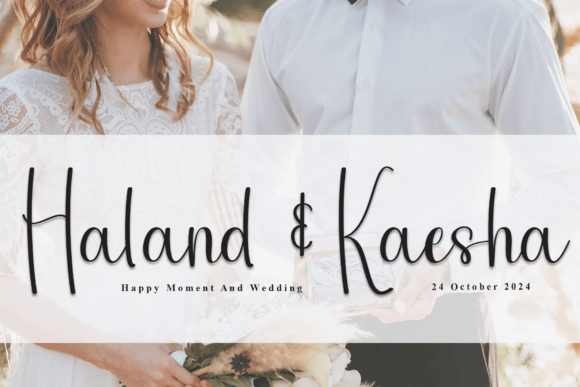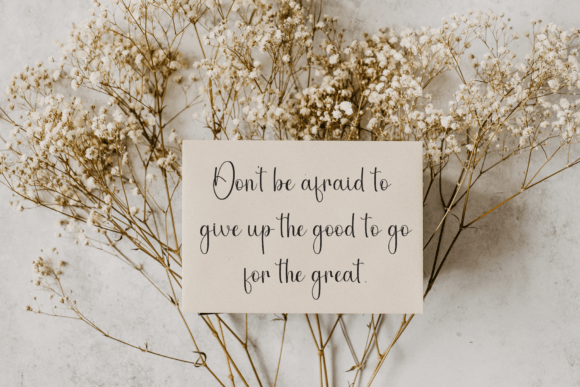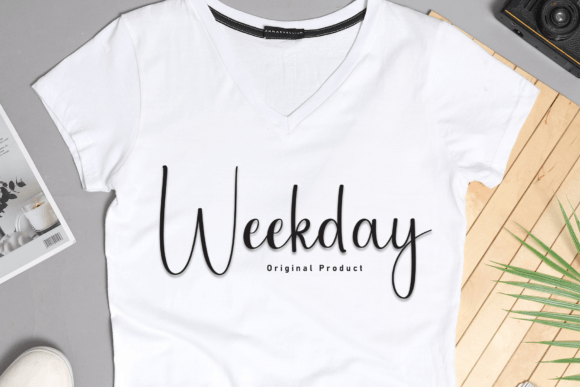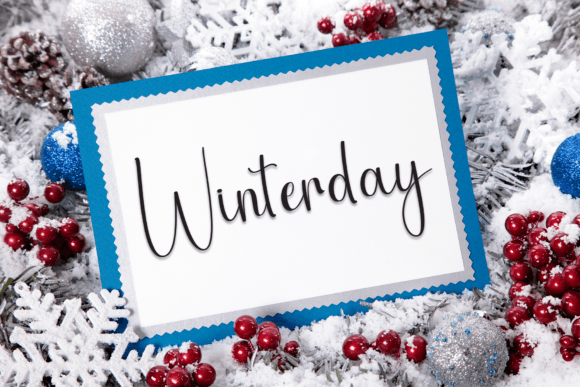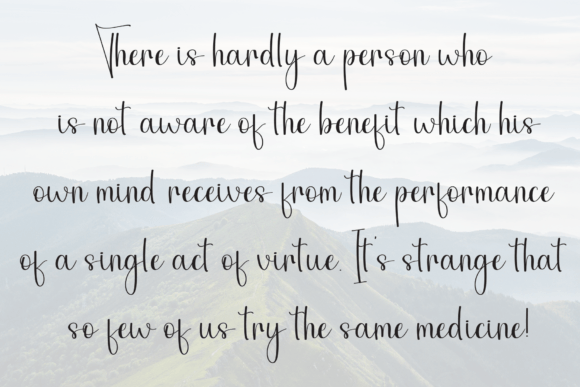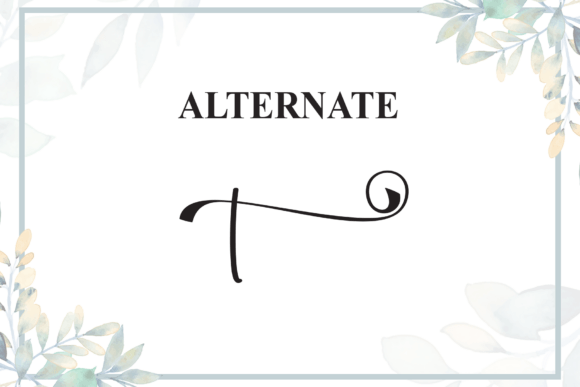
Greetings Font: Elevate Your Designs with Elegance and Sophistication
In the world of typography, few fonts manage to convey the perfect blend of elegance, sophistication, and personal touch. Greetings font is one such exceptional script font that has captured the hearts of designers and crafters alike. With its stylish and incredibly elegant design, Greetings is the perfect choice for adding a handwritten touch to various designs, from wedding invitations and thank you cards to quotes, greeting cards, logos, business cards, and more.
The Charm of Greetings Font
Greetings font boasts a unique charm that sets it apart from other script fonts. Its elegant and flowing design makes it an ideal choice for designs that require a personal and sophisticated touch. The font’s stylish appearance is sure to elevate your designs, making them stand out from the crowd. Whether you’re working on a wedding invitation, a thank you card, or a quote, Greetings font is sure to add a touch of elegance and refinement.
Wedding designers and event planners, rejoice! Greetings font is a perfect choice for creating stunning wedding invitations, save-the-date cards, and other event-related designs. Its elegant design ensures that your clients’ special day starts with a beautiful and memorable note. You can use Greetings font to create:
- Wedding invitations that set the tone for a sophisticated and elegant wedding
- Save-the-date cards that announce the special day in style
- Thank you cards that express gratitude with a personal touch
- Wedding programs that showcase the ceremony’s details in a beautiful and elegant font
Ideal for Crafters and Stationery Designers
Crafters and stationery designers, you’ll love Greetings font for its versatility and wide range of applications. Use it to create:
- Greeting cards for special occasions, such as birthdays, anniversaries, and holidays
- Quotes and posters that showcase inspiring words in a beautiful and elegant font
- Business cards that make a lasting impression with a sophisticated and professional design
- Logos and branding materials that require a personal and elegant touch
Why Choose Greetings Font?
So, what makes Greetings font a top choice among designers and crafters? Here are just a few reasons:
- Elegant Design: Greetings font features a stylish and incredibly elegant design that’s sure to elevate your designs.
- Versatility: This script font is perfect for a wide range of applications, from wedding designs to business cards and quotes.
- Handwritten Touch: Greetings font adds a personal and handwritten touch to your designs, making them more relatable and engaging.
- Easy to Read: Despite its elegant design, Greetings font is easy to read, making it perfect for body text and captions.
Tips for Using Greetings Font
To get the most out of Greetings font, here are a few tips to keep in mind:
- Pair with Other Fonts: Combine Greetings font with other fonts to create a unique and visually appealing design.
- Use for Headings and Titles: Greetings font is perfect for headings and titles, where its elegant design can shine.
In conclusion, Greetings font is a stylish and incredibly elegant script font that’s perfect for designers and crafters looking to add a handwritten touch to their designs. With its elegant design, versatility, and ease of use, Greetings font is sure to become a staple in your font collection.